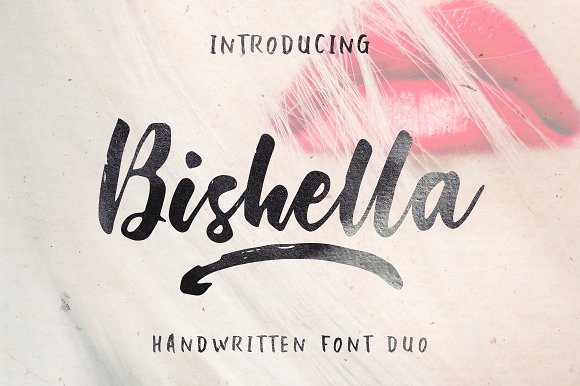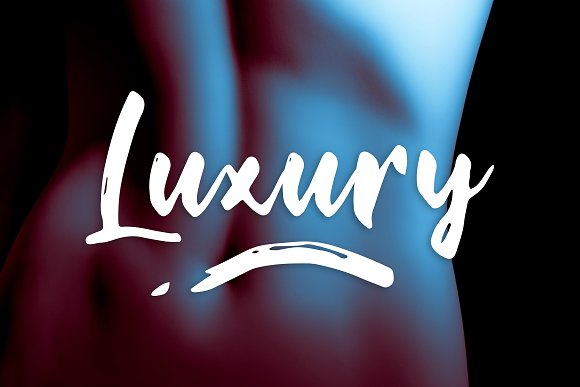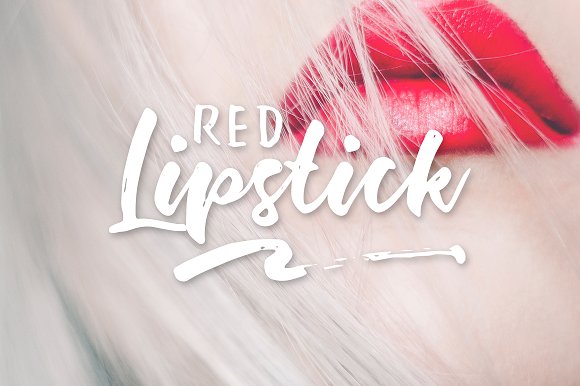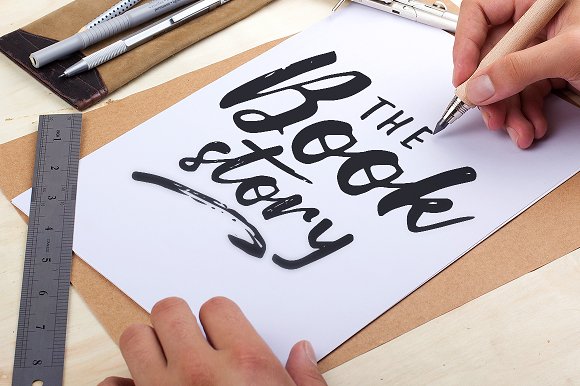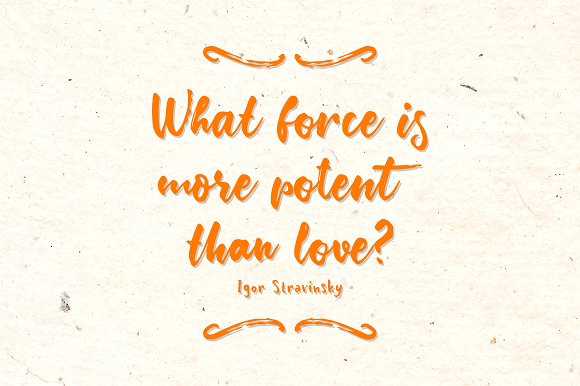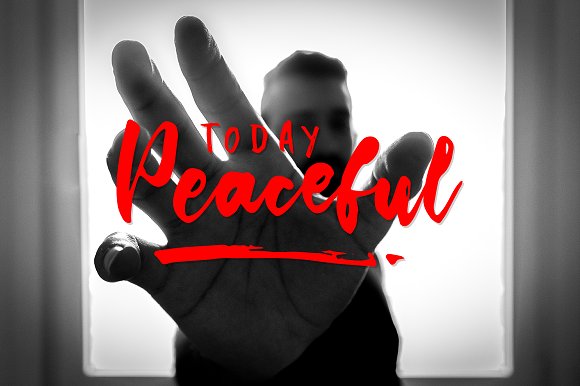
Bishella Font Duo
Again presented a hand brush products. The style of handwriting and irregular but still elegant, and you will enjoy to use this font style.
Bishella Script has standard ligatures included – to give the font a more natural, scripted look when you have any double letters in your design. It also has multilingual support with accented characters for international users.
Bishella Script is perfect for branding projects, homeware designs, product packaging – or simply as a stylish text overlay to any background image.